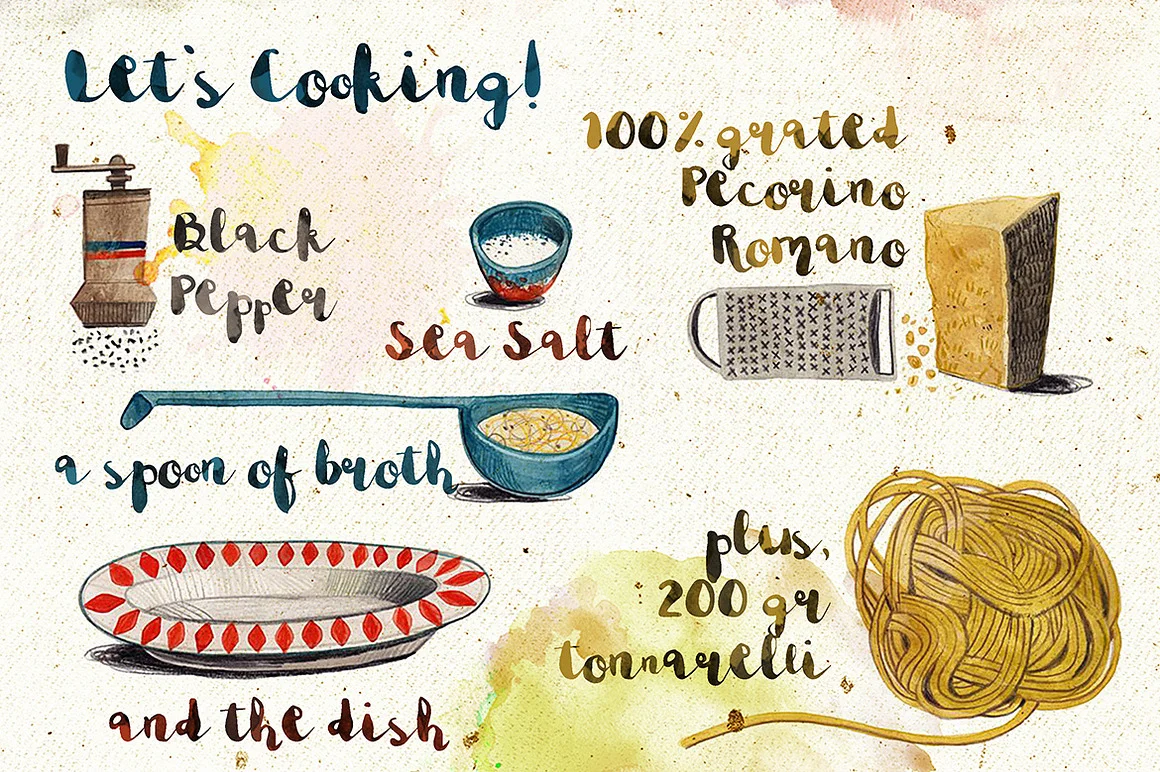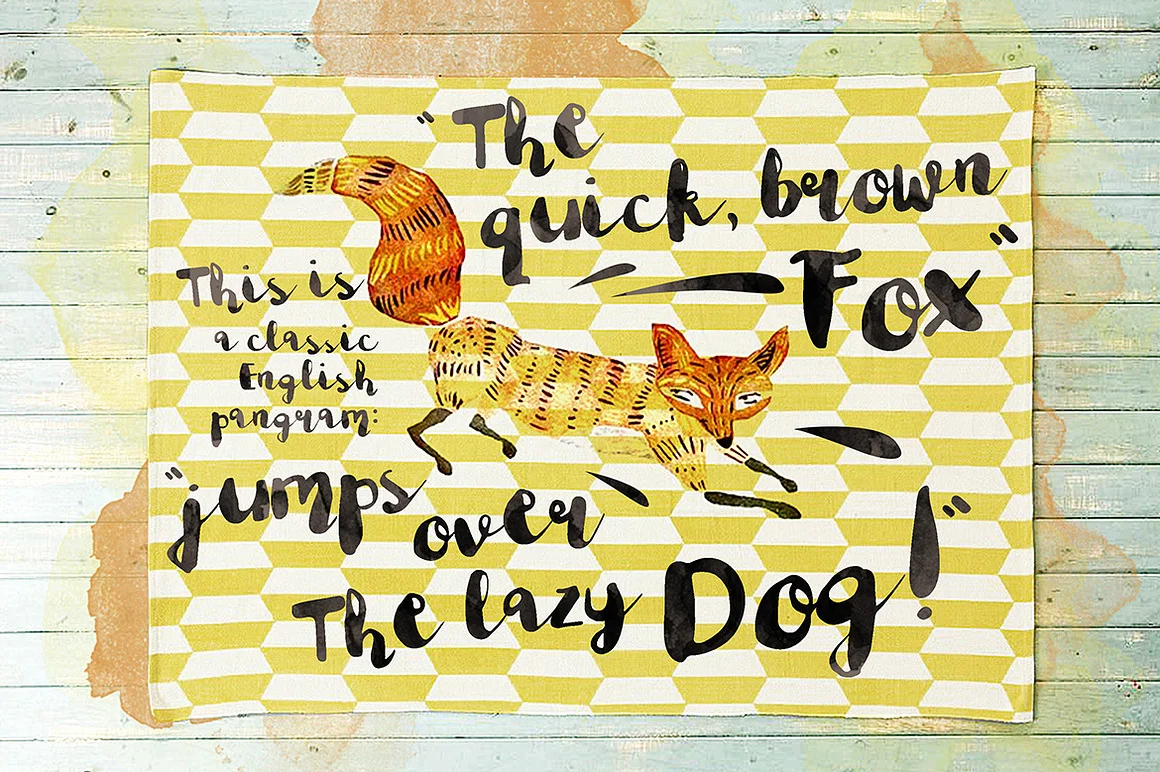
Astrud Miller Script Font
Astrud Miller Script Font is perfect for vintage branding, retro logos, classic signage, nostalgic packaging, artisanal product labels, craft beer branding, barbershop designs, antique shop marketing, vintage poster art, and heritage brand identities.
What makes Astrud Miller Script Font so exciting is its authentic vintage character that captures the golden age of hand-lettered signage and classic American typography. This remarkable script typeface combines nostalgic charm with contemporary functionality, delivering timeless elegance that never goes out of style.
The Astrud Miller Script Font family includes regular and bold weights, featuring decorative swashes, stylistic alternates, vintage ligatures, and ornamental flourishes that perfectly complement retro and classic design aesthetics.
Step back in time with Astrud Miller Script Font, a beautifully crafted vintage script typeface that brings authentic period charm to modern design projects. This exceptional font captures the essence of mid-century lettering artistry while providing the technical precision demanded by today's professional designers.
The distinctive letterforms of Astrud Miller Script Font showcase the craftsmanship of traditional sign painters and lettering artists from America's golden age of advertising. Each character displays careful attention to historical accuracy while maintaining optimal legibility for contemporary applications. The font's moderate slant and well-proportioned ascenders create visual harmony that works beautifully across various design contexts.
Heritage brands and nostalgic marketers consistently choose Astrud Miller Script Font for projects requiring authentic vintage appeal. The comprehensive glyph set includes period-appropriate alternates, decorative elements, and specialty characters that enable designers to create truly authentic retro compositions that resonate with audiences seeking genuine vintage aesthetics.
The versatility of Astrud Miller Script Font extends from traditional print applications to modern digital platforms. Whether developing craft brewery branding, designing vintage-inspired packaging, or creating nostalgic social media content, this remarkable typeface delivers consistent vintage charm that captures the spirit of classic American design traditions.
Transform your creative projects with the timeless appeal of Astrud Miller Script Font. This distinguished vintage script combines historical authenticity with modern reliability, making it the perfect choice for designers who appreciate the enduring beauty of classic lettering traditions.